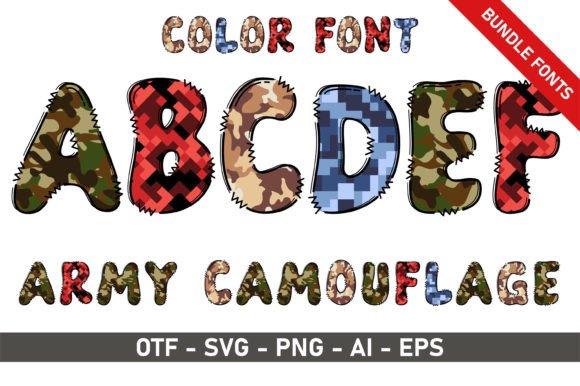
Army Camouflage Bundle Font: A Fun and Playful Font for Creative Designs
The Army Camouflage Bundle Font is a unique and creative font that is perfect for designers who want to add a playful and artistic touch to their designs. This font is often used in designs that aim to convey a playful or artistic feel, such as children’s books, posters, invitations, greeting cards, and more.
The Characteristics of Army Camouflage Bundle Font
The Army Camouflage Bundle Font is a fun and playful font that features a camouflage pattern in various colors. The font is available in both black and color versions, making it versatile for different design projects. The black version of the font is compatible with Cricut Design Space and other cutting machines, making it perfect for crafters and makers.
Uses of Army Camouflage Bundle Font
This font is perfect for a variety of design projects, including:
- Children’s books: The Army Camouflage Bundle Font is a great choice for children’s books because of its playful and whimsical feel. The font is easy to read and features a fun camouflage pattern that kids will love.
- Posters: The font is perfect for creating eye-catching posters for kids’ parties, events, or promotions.
- Invitations: The Army Camouflage Bundle Font is a great choice for creating invitations for kids’ parties or events.
- Greeting cards: The font is perfect for creating fun and playful greeting cards for kids.
The Benefits of Using Army Camouflage Bundle Font
The Army Camouflage Bundle Font offers several benefits to designers, including:
- Unique and creative design: The font features a unique camouflage pattern that will make your designs stand out.
- Playful and artistic feel: The font is perfect for designs that aim to convey a playful or artistic feel.
- Easy to read: The font is easy to read, making it perfect for children’s books and other designs where readability is important.
- Versatile: The font is available in both black and color versions, making it versatile for different design projects.
Tips for Using Army Camouflage Bundle Font
Here are some tips for using the Army Camouflage Bundle Font:
- Use the font for designs that require a playful and artistic feel.
- Experiment with different colors and patterns to create unique designs.
- Use the font for children’s books, posters, invitations, and greeting cards.
The Army Camouflage Bundle Font is a fun and playful font that is perfect for designers who want to add a creative and artistic touch to their designs. The font is versatile and can be used for a variety of design projects, including children’s books, posters, invitations, and greeting cards. With its unique camouflage pattern and easy-to-read design, this font is sure to make your designs stand out.
- Q: What is the Army Camouflage Bundle Font?
- A: The Army Camouflage Bundle Font is a unique and creative font that features a camouflage pattern in various colors.
- Q: What is the font used for?
- A: The font is used for designs that require a playful and artistic feel, such as children’s books, posters, invitations, and greeting cards.